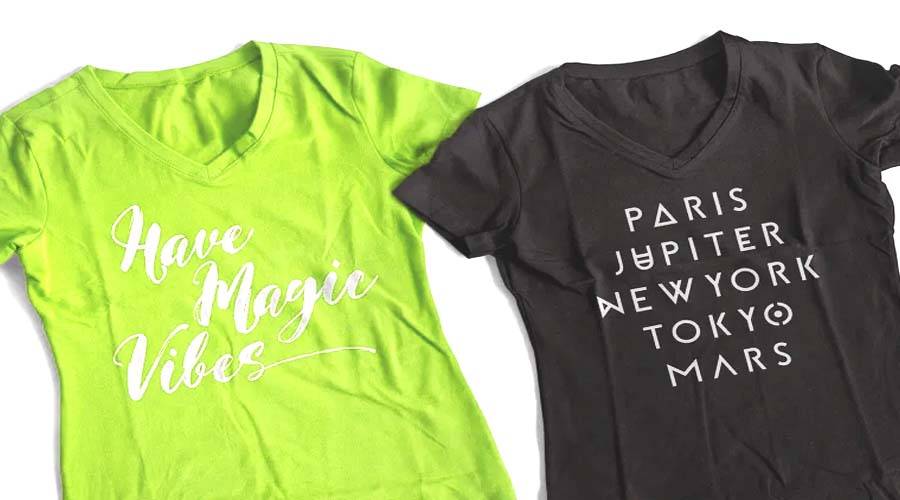
Magical Stylish Font Duo
Welcome to the Magical Stylish Font Duo! a wet brush font and a geometric font. Fontsgood created and released the font on August 27, 2018.
Magical Stylish Font Duo is as simple to use as blinking your eyes; simply type or copy and paste the text you want. This is how simple it is. It includes an alternate set of uppercase letters as well as a set of lowercase letters to ensure you get the desired look. Fonts as Magical Stylish Font Duo appears to be available in both TrueType and OpenType formats.
The Magical Stylish Font Duo is appropriate for a marketing firm, wedding invitations, company logo, branding, monogram, and graphic art. It will boost the quality of a wide range of design tasks, such as branding, articles, wedding designs, greeting cards, documents, product lines, tags, and so much more! The font very often used in writing quotes on the t-shirt.
| Name | Magical Stylish Font Duo |
| Style | Script, Brush |
| Designer | Fontsgood |